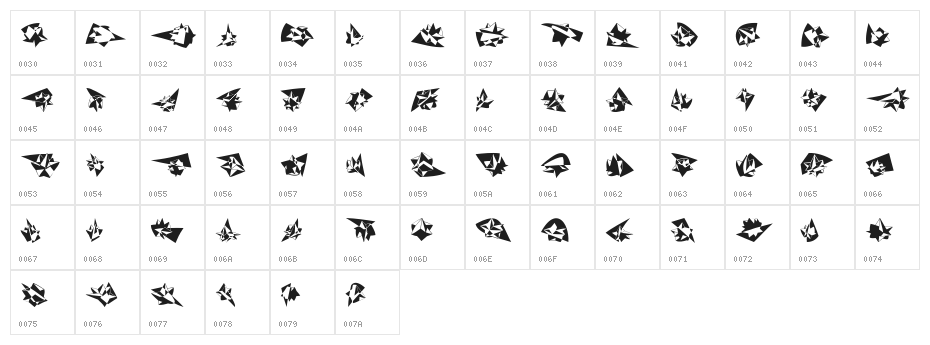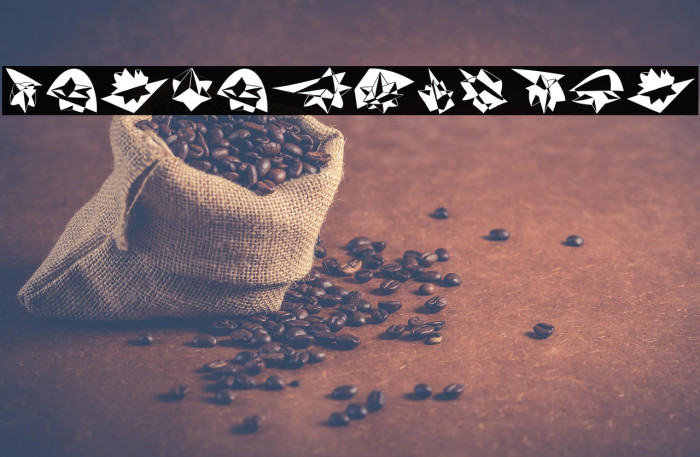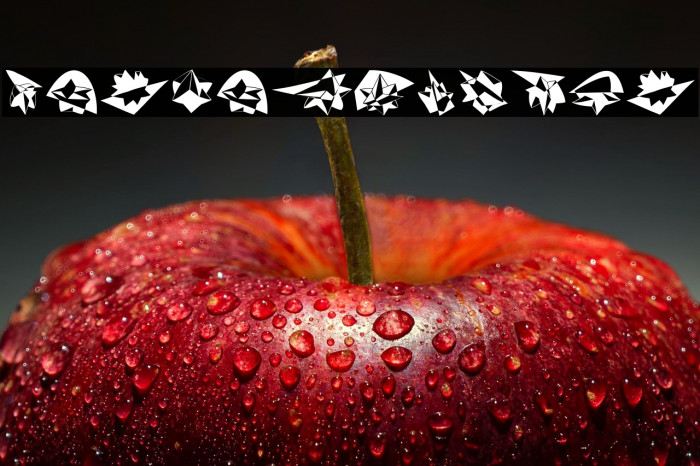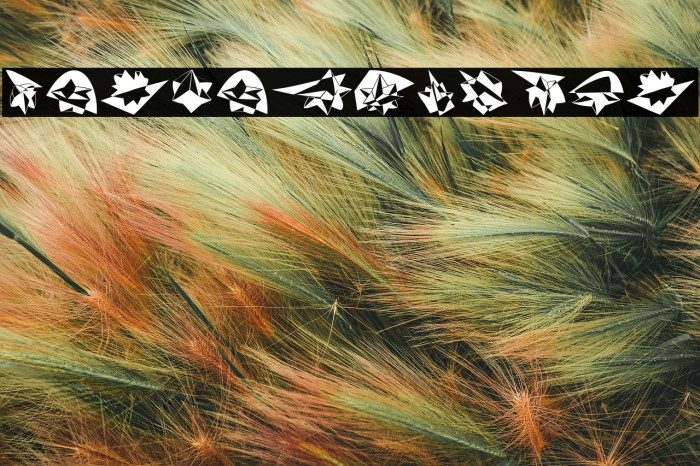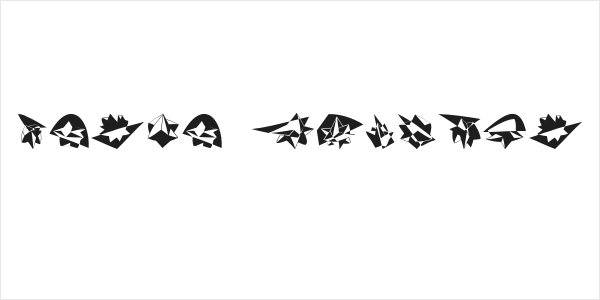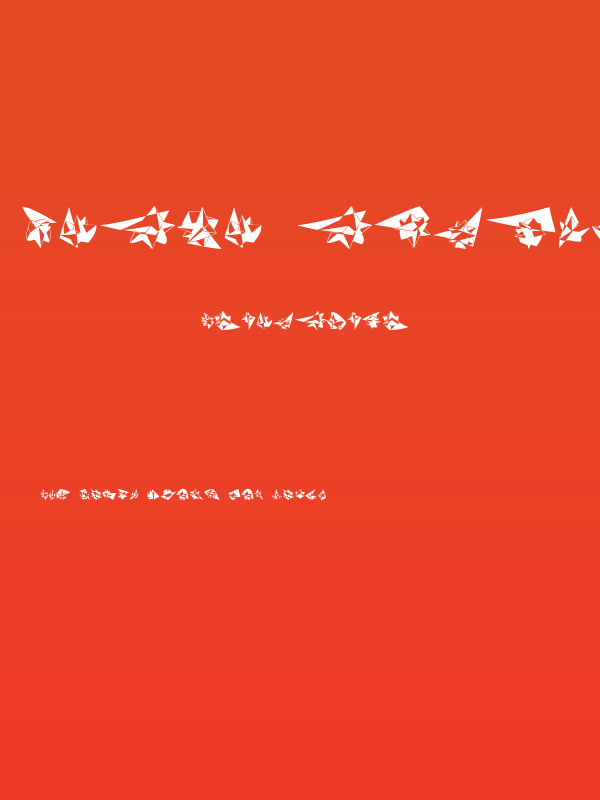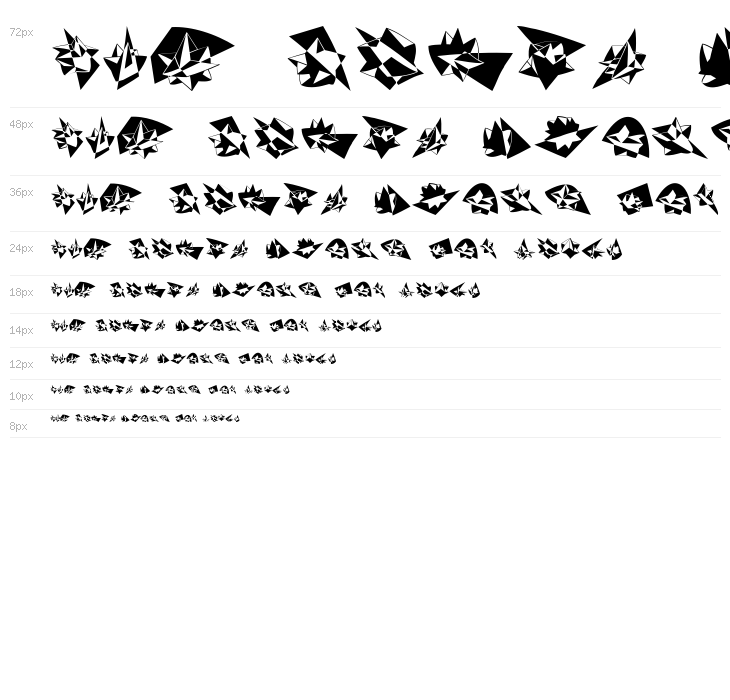
Formo Regular Font
Formo Regular Description
This font features an abstract and geometric design, characterized by sharp angles and fragmented shapes. Each character is composed of a series of intersecting lines and planes, creating a dynamic and visually striking appearance. The design is reminiscent of origami or crystalline structures, offering a unique and artistic flair. The characters are highly stylized, making them more suitable for decorative purposes rather than readability. The overall aesthetic is modern and avant-garde, appealing to those looking for a bold and unconventional typeface.
| Overall Style | Modern, Avant-Garde |
| Use Case | Logos, Posters, Artistic Displays |
| Proposed Projects | Ideal for artistic projects, album covers, modern art installations, or branding that requires a unique and avant-garde touch. |